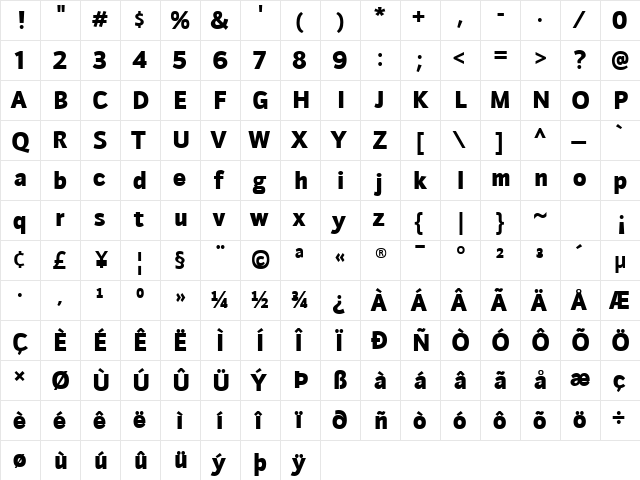
Doradani Black Font Preview
Doradani Black
Design Context for Doradani Typeface
Doradani offers clean, dependable letterforms without strong stylistic allegiance, making it a practical choice for designers who need flexibility.
Pro Tip: Pair Doradani with a font of contrasting weight or personality to build a more expressive typographic hierarchy.